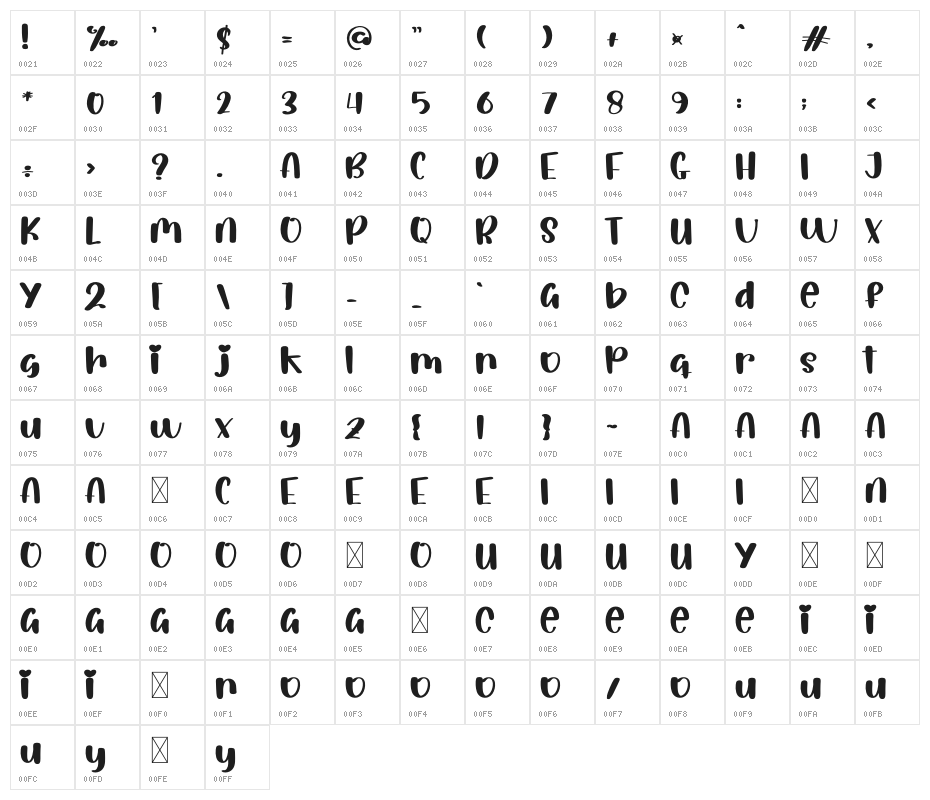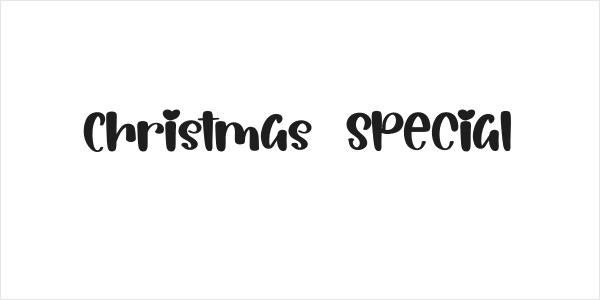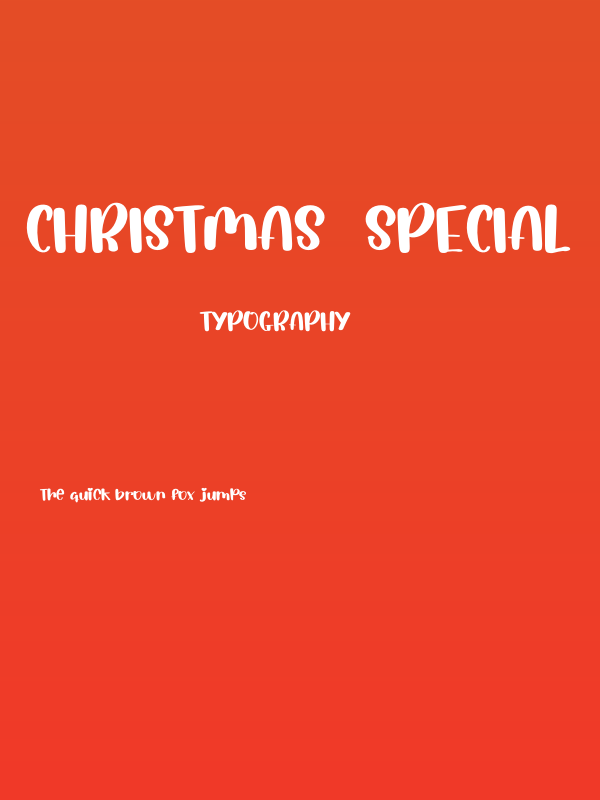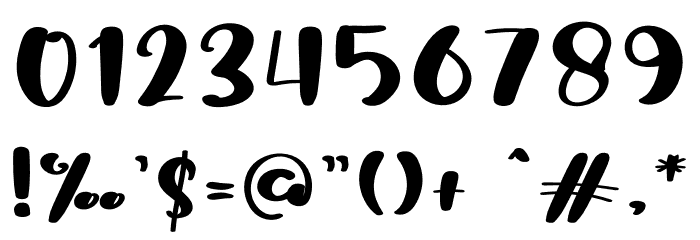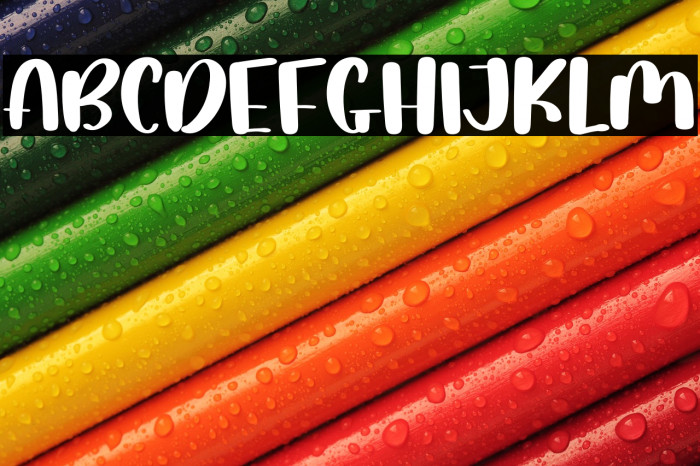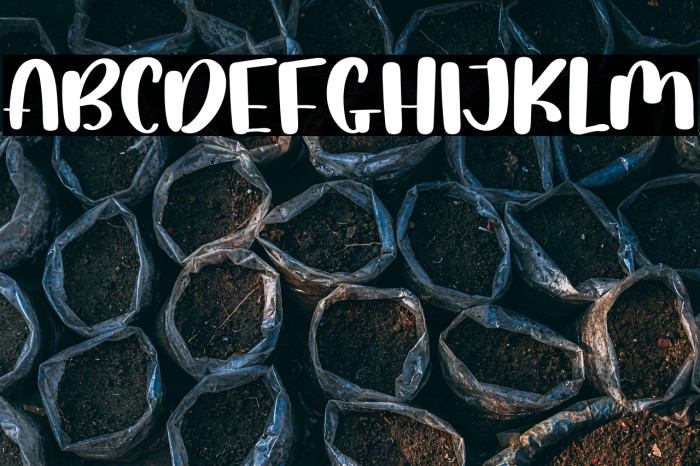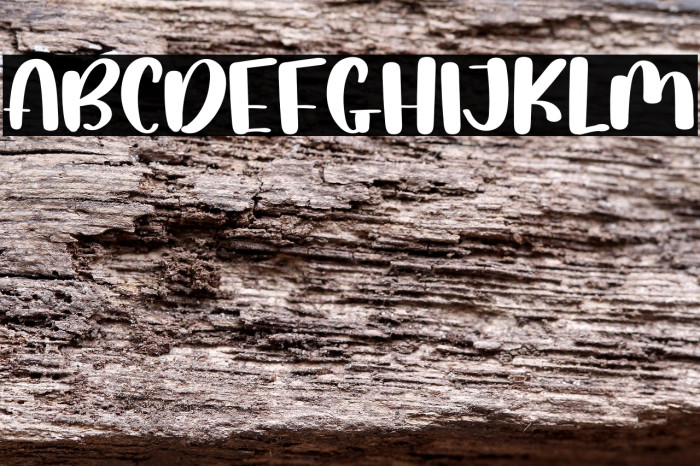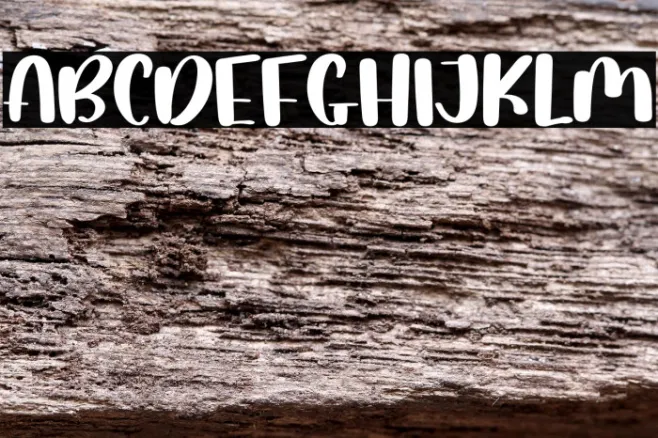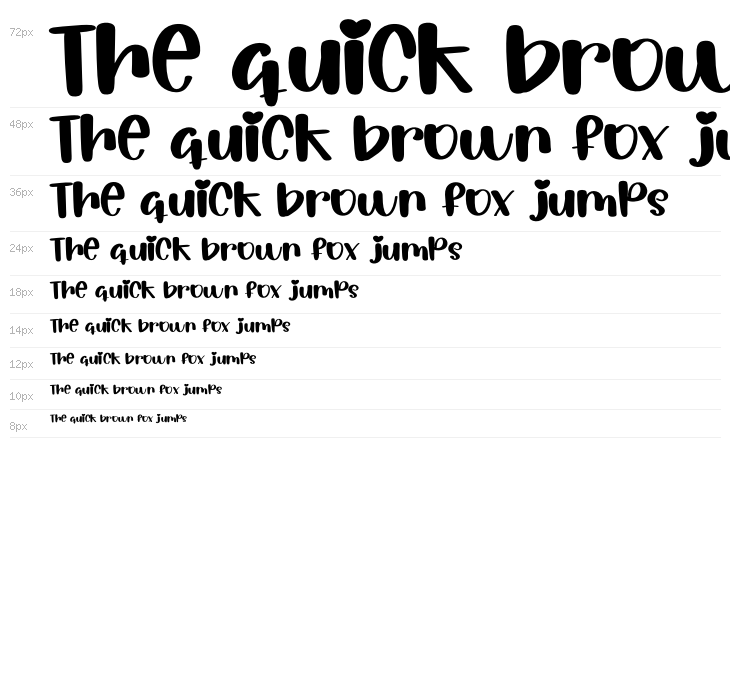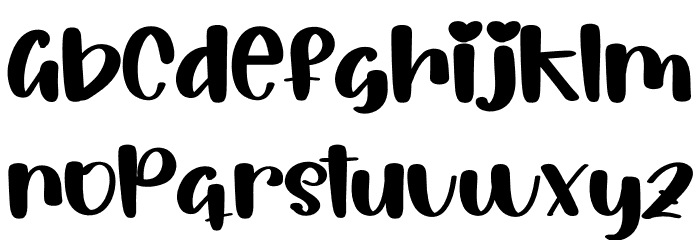
Christmas Special Font
Christmas Special Description
This playful and festive font features bold, rounded characters with a whimsical touch, perfect for holiday-themed designs. The uppercase letters are characterized by their thick strokes and slight slant, giving them a dynamic and lively appearance. The lowercase letters maintain a consistent style, with some incorporating unique elements like heart shapes, adding to the font's charm. The numbers and special characters are equally bold and expressive, ensuring they stand out in any design. Overall, this font exudes a joyful and celebratory vibe, making it ideal for capturing the spirit of the season.
| Overall Style | Festive |
| Use Case | Headlines, Logos, Invitations |
| Proposed Projects | Ideal for holiday cards, festive banners, party invitations, and seasonal marketing materials. |